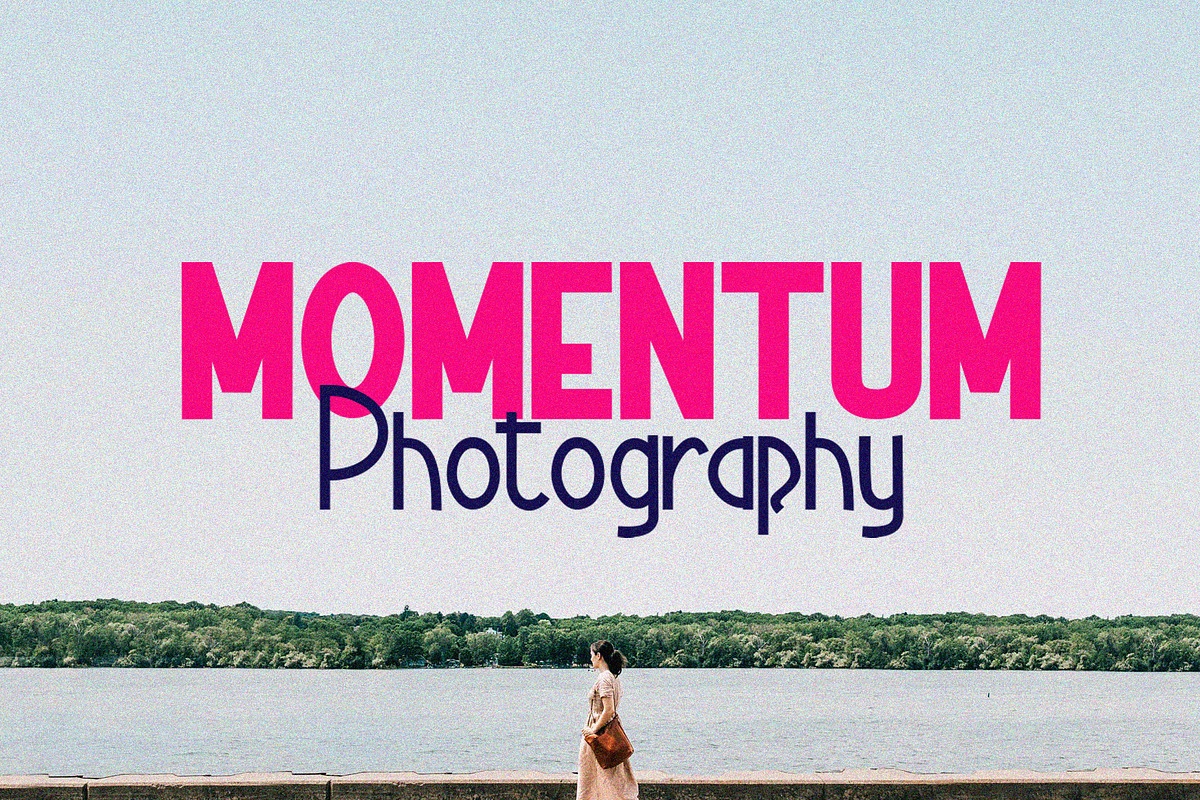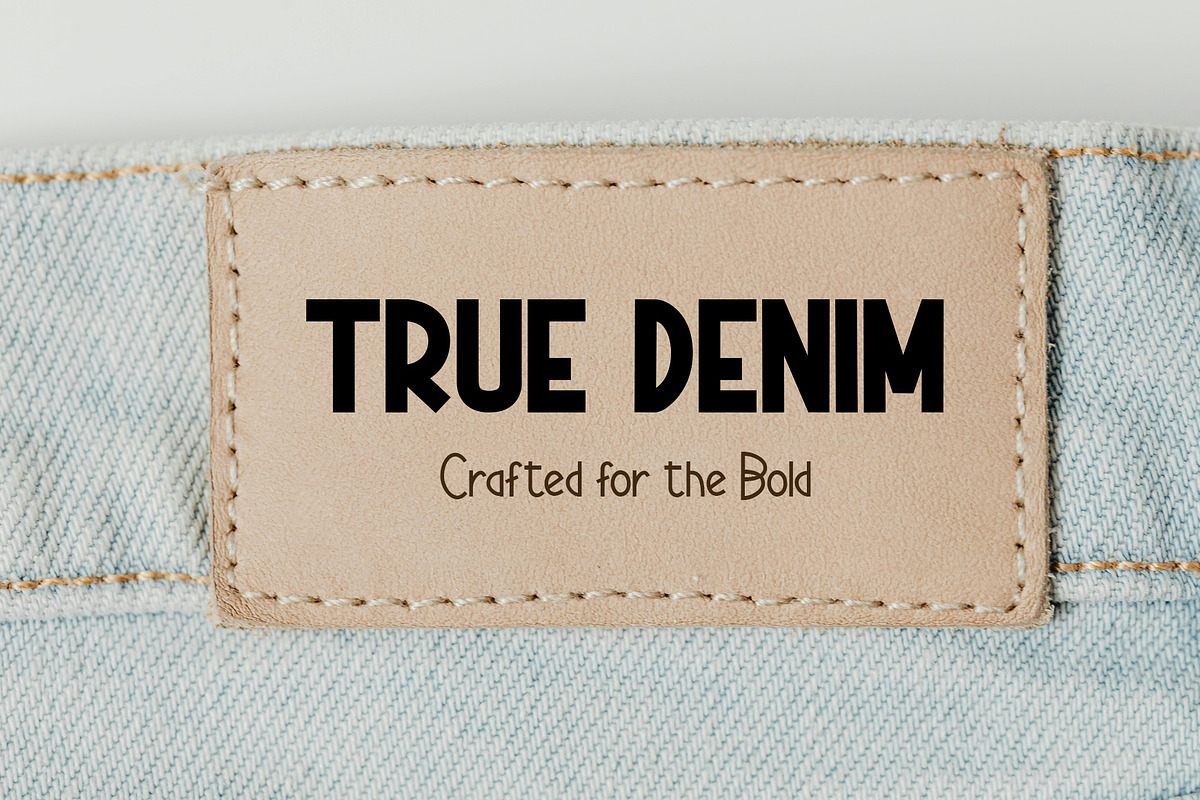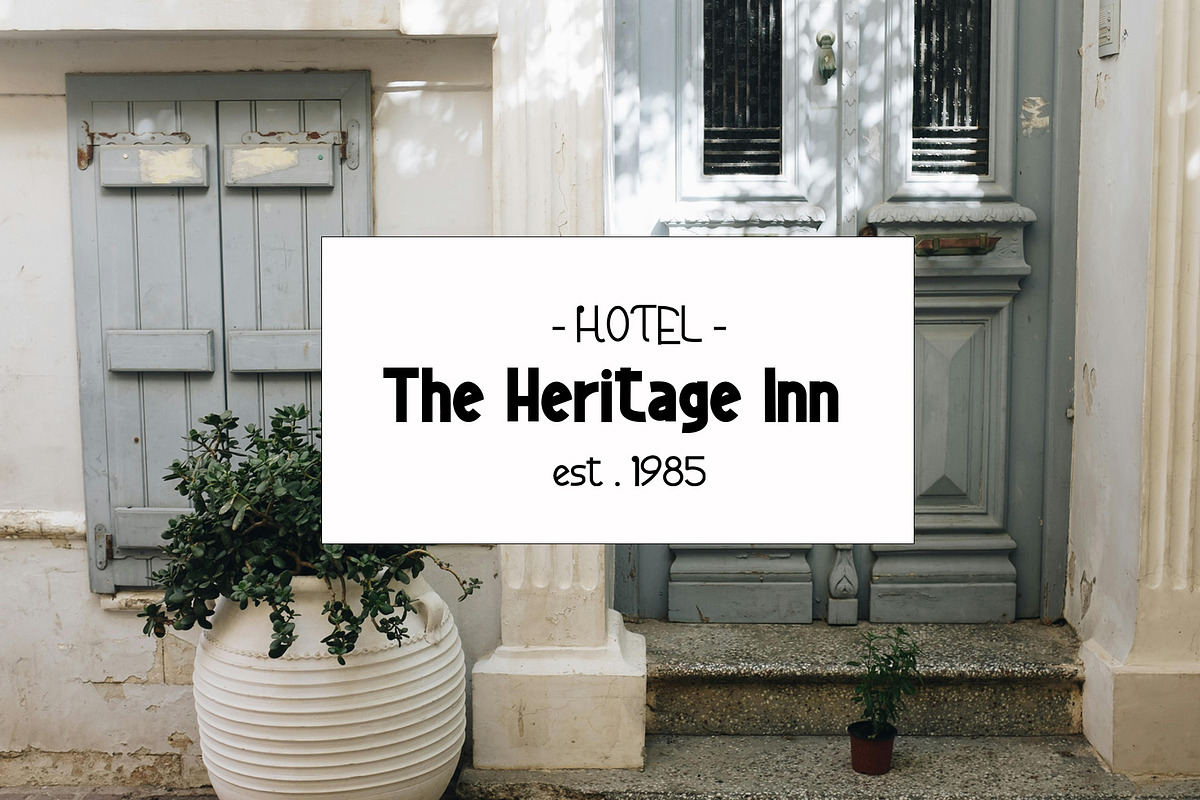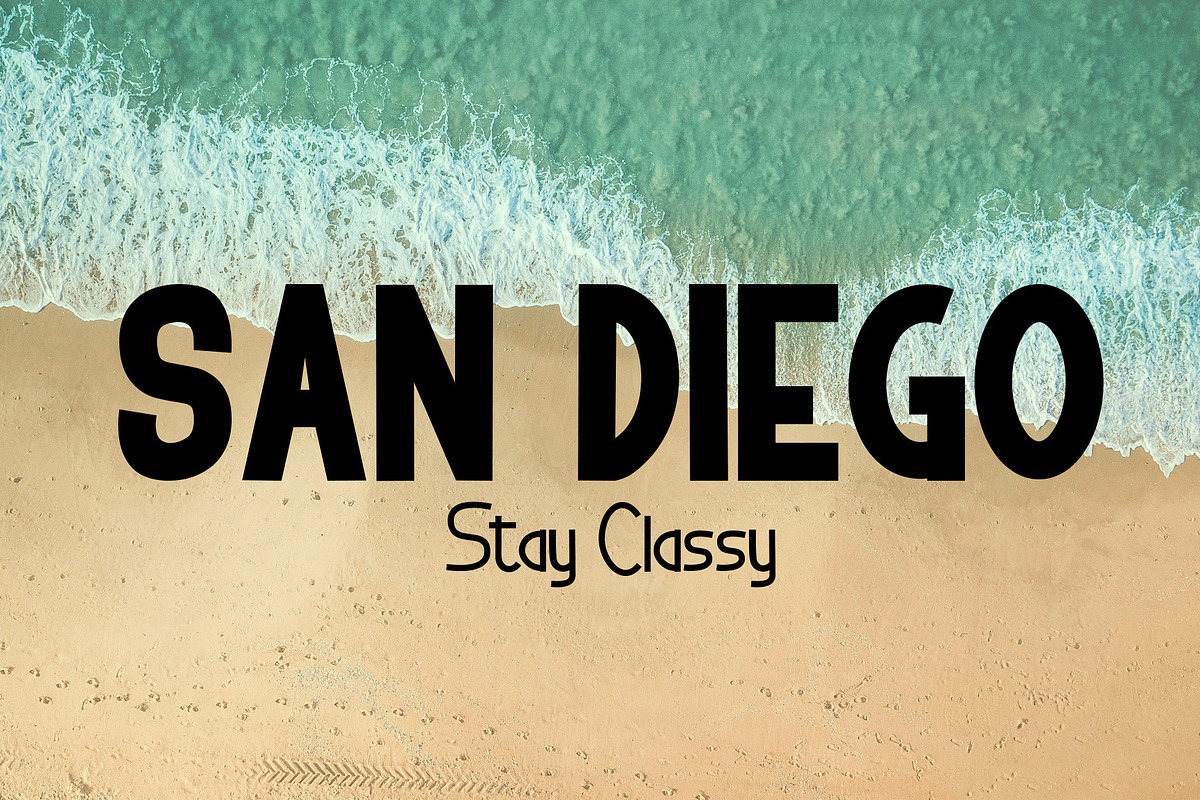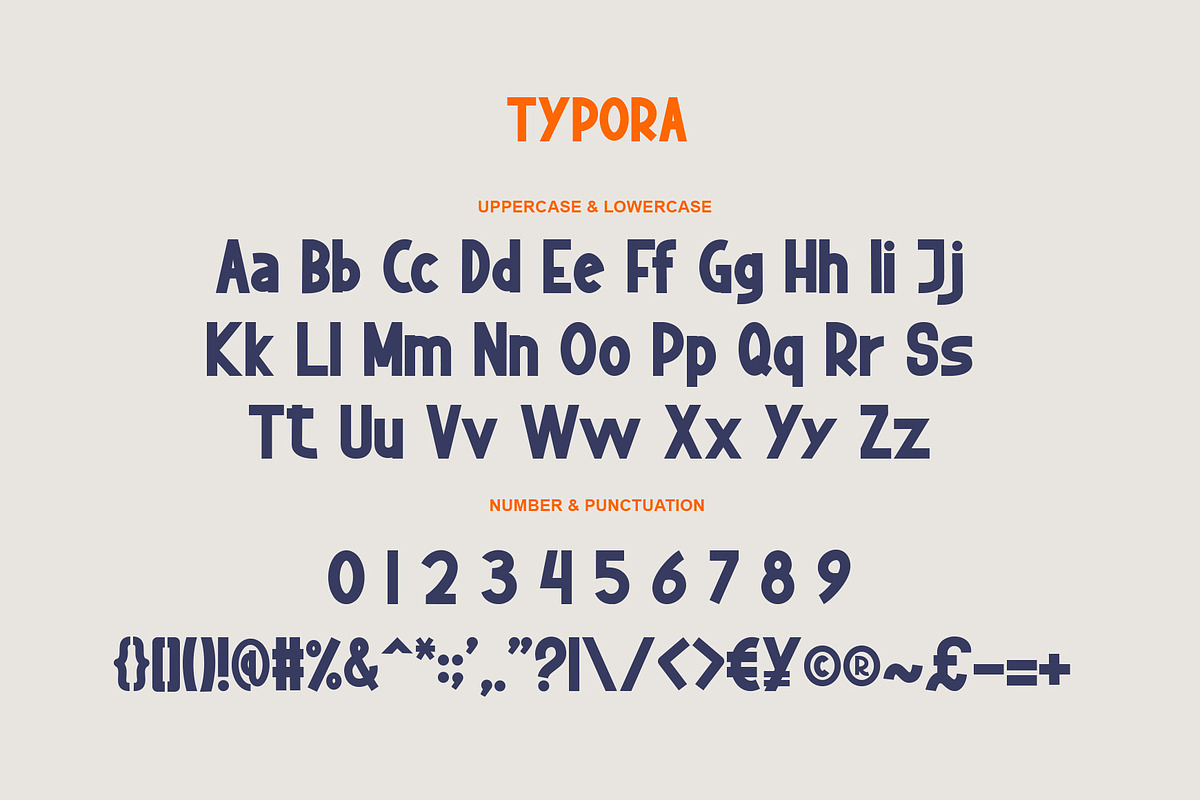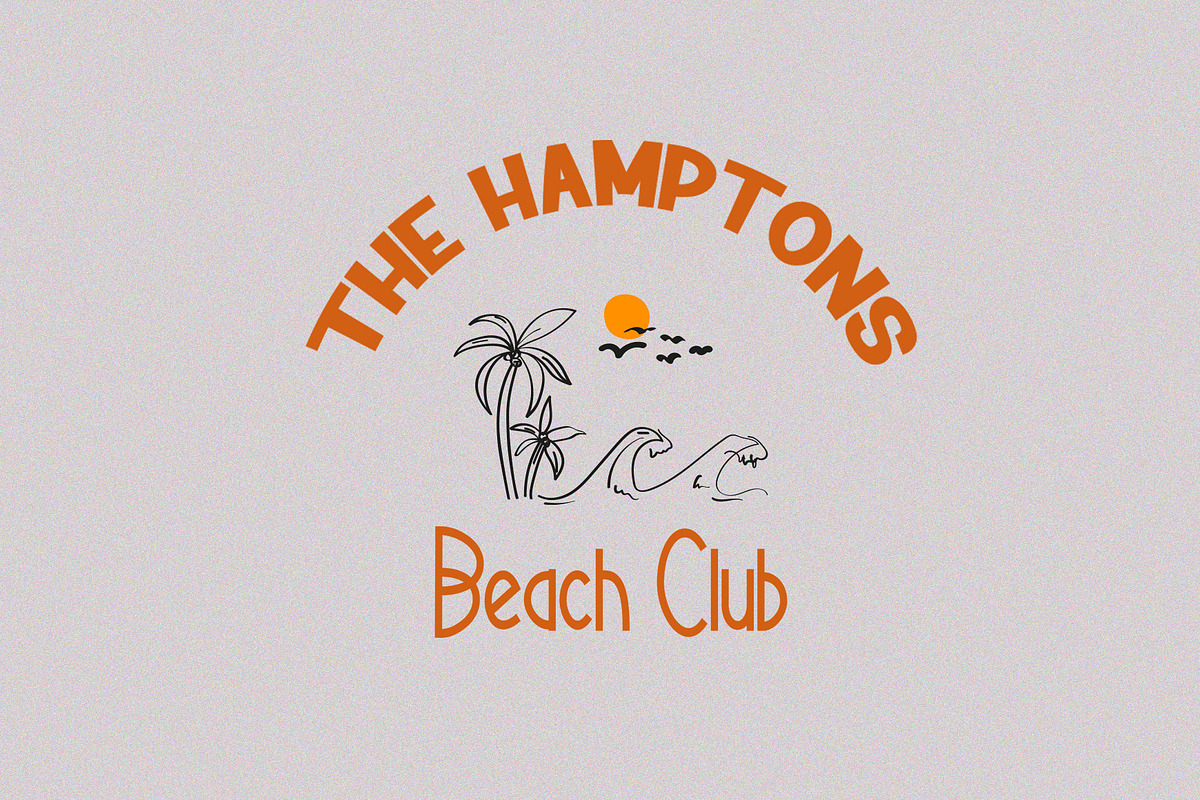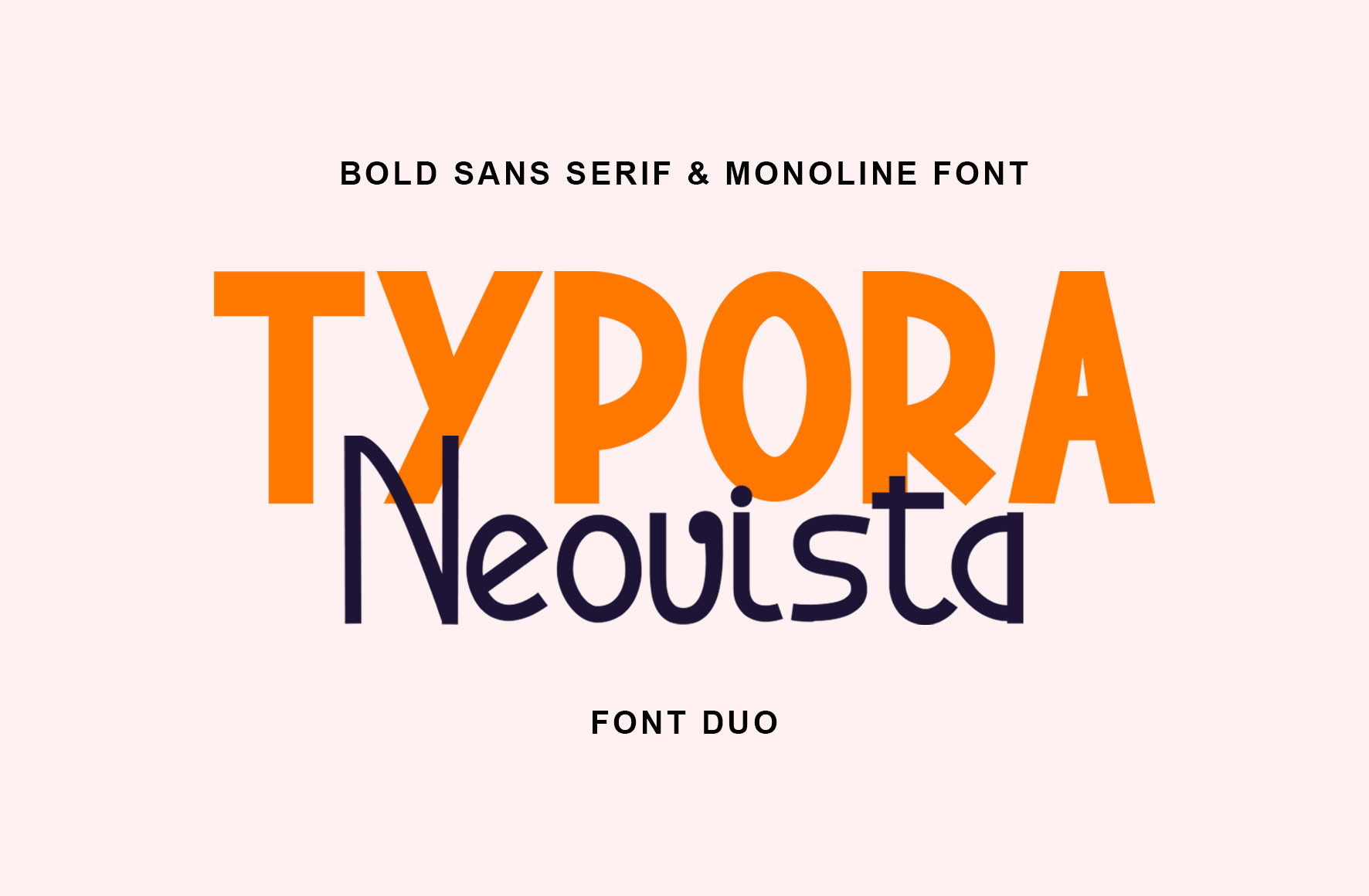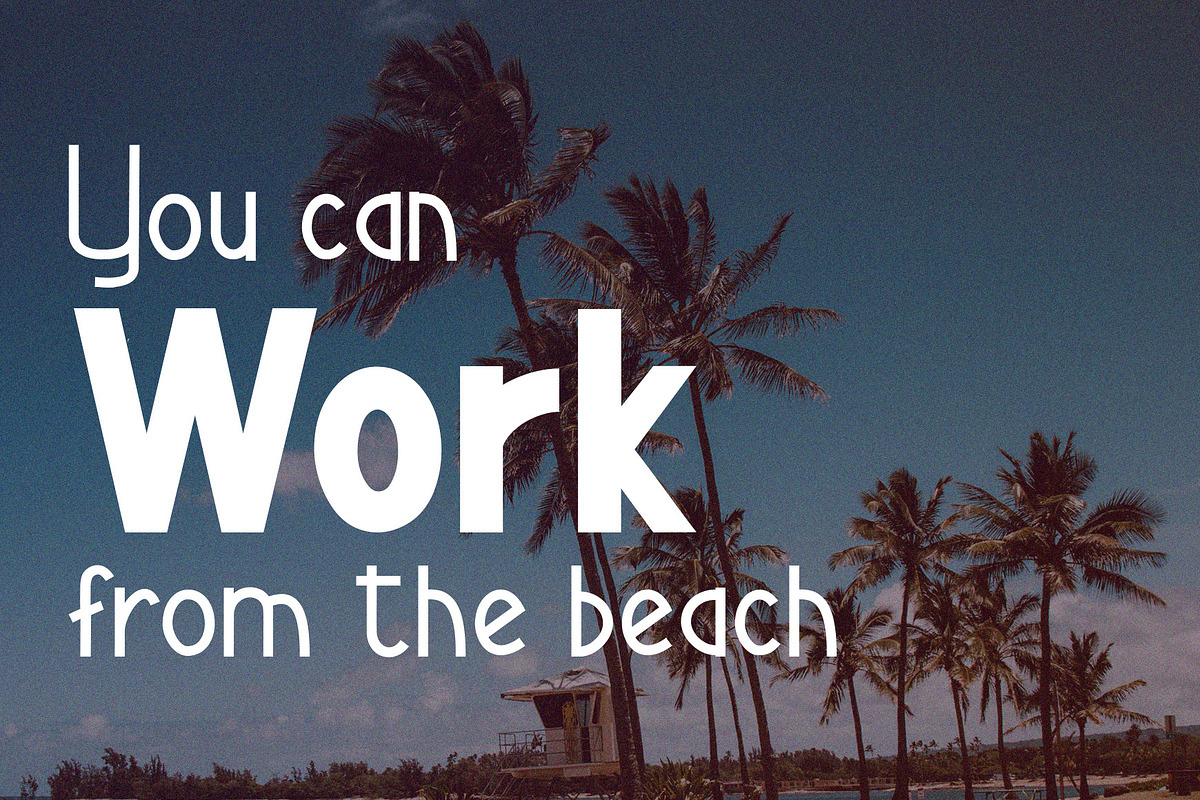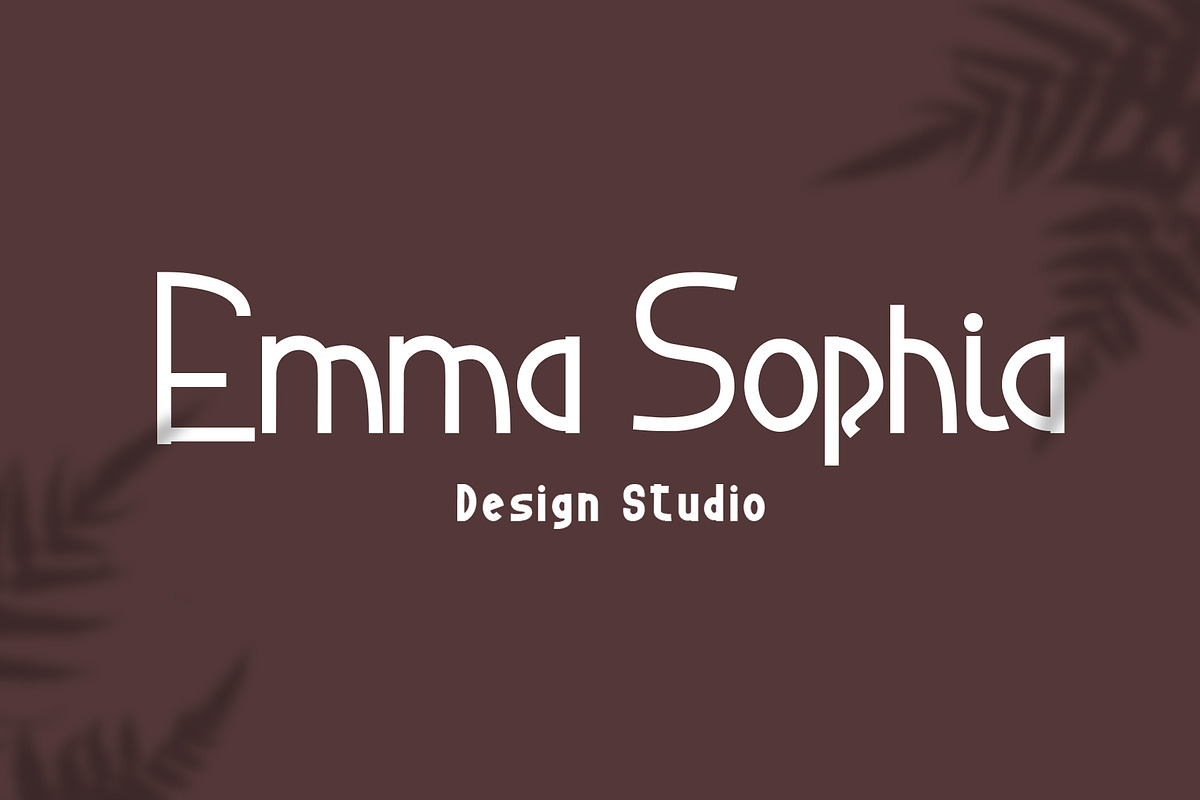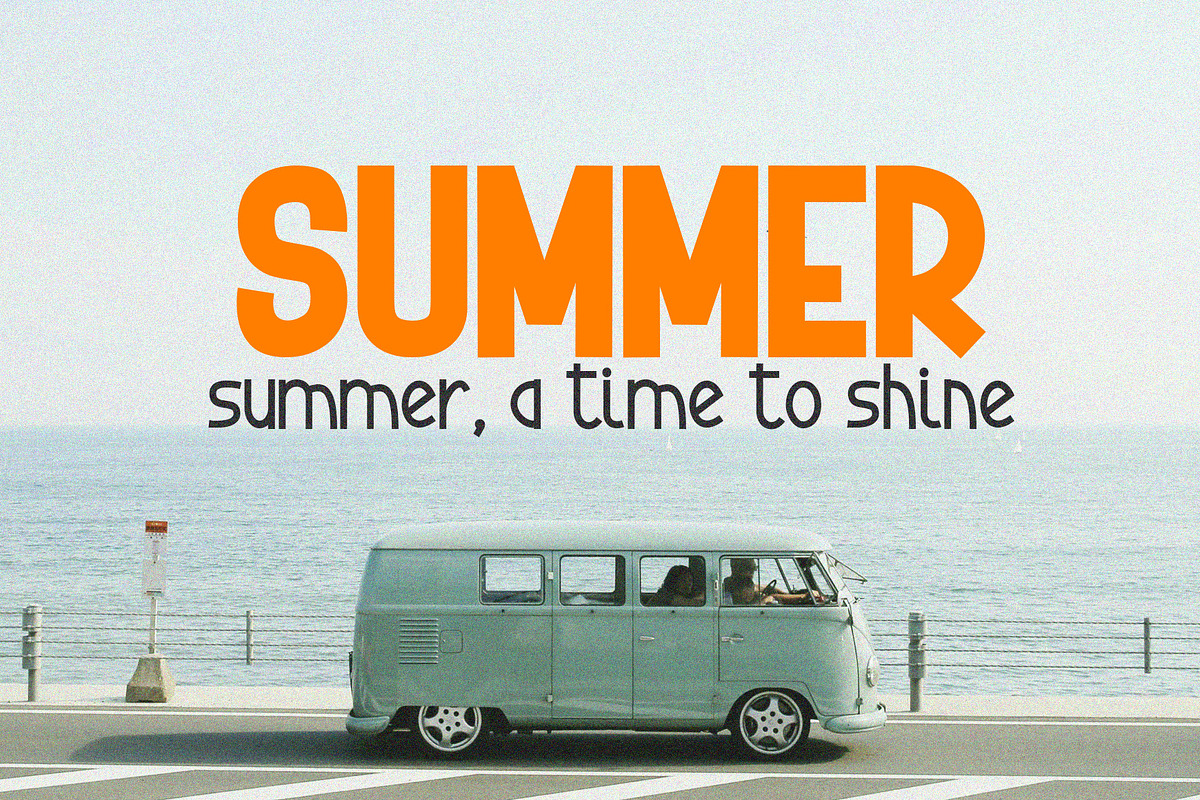
Typora Neovista Modern Sans Font
Typora Bold Sans Serif font is a strong and modern typeface, designed with consistent line thickness to create a bold and impactful impression. It is perfect for designs that require a striking and highly readable appearance, such as headlines, logos, and promotional materials. With its clean, ornament-free characters, it offers a professional and minimalist look, making it ideal for both digital and print media.
The Neovista Monoline font features uniform line thickness across the entire character set. This contemporary typeface combines modernity, sleek aesthetics and boundless creativity to offer a truly unique and engaging visual experience. With its clean lines and smooth shapes, this Neovista font embodies the perfect balance between simplicity and sophistication. This font is perfect for applications like branding, modern graphic design, or any project looking for a light yet stylish feel.